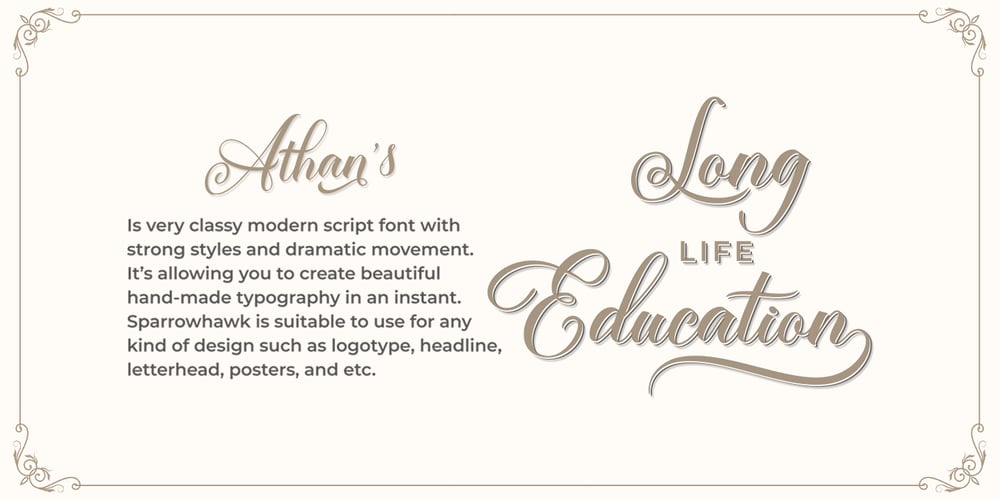
Athan Script Font Family was designed by Teuku Rinaldi Novianda and published by Max.co Studio. Athan Script contains 1 styles and family package options. Athan Script is a classic calligraphy font. This is a classic thin font with an italic style. This font is available in several modern swirls that can make your work look elegant, sweet and perfect. This font is suitable for logos, branding projects, design of household appliances, product packaging, mugs, quotes, posters, shopping bags, logos, t-shirts, book covers, business cards, invitation cards, greeting cards, and all your other beautiful projects. Athan Script has 620+ glyphs and 400 alternative characters, including various language support. You can use this font for your work very easily. Because there are many features in it. Contains a complete set of upper and lowercase letters, punctuation, numbers and multilingual support. This font also includes several ligatures and alternative styles Set Stylistic For those of you who have software that is able to work OpenType (Corel Draw / Photoshop / Illustrator / InDesign). If you don’t have a program that supports OpenType features such as Adobe Illustrator and CorelDraw X Version, you can access all alternative glyphs using Font Book (Mac) or Character Map (Windows). How to access all alternative characters using Adobe Illustrator: https://www.youtube.com/watch?v=XzwjMkbB-wQ How to access all alternative characters, using Windows Character Map with Photoshop: https://www.youtube.com/watch?v=Go9vacoYmBw Mail support: maximal.fonts@gmail.com